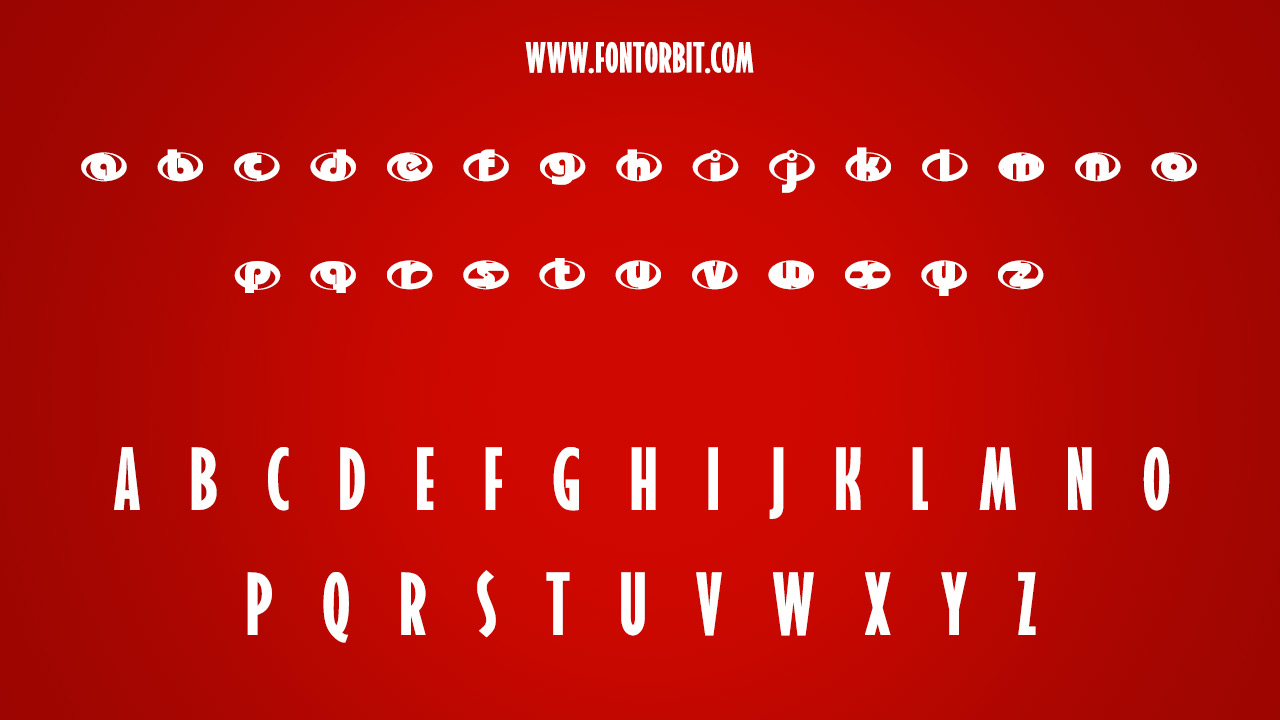
Incredibles Font is a vibrant typeface inspired by the title design of the 2004 animated film The Incredibles.
Designed by Jens R. Ziehn and released on November 17, 2004, this font captures the bold and energetic style of the movie’s branding. It is available for free personal use and is perfect for adding a touch of superhero flair to your projects.
Types Of The Incredibles Font
a. Incredibles Regular
The Incredibles Font is available in TTF formats. It includes lowercase letters and some special characters, making it ideal for film-themed designs and fan projects.
This font is excellent for film fan projects, including posters, banners, and fan art related to The Incredibles, as well as themed merchandise and collectables celebrating the superhero genre. It is also perfect for event and party decorations, such as invitations and decor for superhero-themed events. It is useful for creating engaging social media graphics for film-related posts.
The Incredibles Font, created by Jens R. Ziehn, reflects the dynamic and heroic essence of the film’s title design. Free for personal use, it is an excellent choice for film fan projects, themed merchandise, and event decorations. Its bold and energetic design makes it a valuable asset for adding a superhero touch to various creative endeavours.
2.What Is The Incredibles Font Called?
The Incredibles font is called “The Incredibles” and was designed by Jens R. Ziehn.
3.What Are The Trending Styles And Variations Of The Incredibles Font?
Trending styles include bold, dynamic variations with strong, superhero-inspired letterforms and occasional use of italicized or condensed versions.
4.What Are The Best Practices For Using The Incredibles Font In Web Design?
Ensure readability by using it for headlines or key elements and pairing it with simple, clean fonts for body text.
5.What Are The Advantages Of Using The Incredibles Font In Branding?
It evokes a dynamic, heroic feel, enhancing brand identity with a bold and recognizable design.
6.What Are The Different Weights And Styles Available For The Incredibles Font?
The Incredibles font typically includes a regular weight with bold or dynamic styles for emphasis, but variations are limited in the free version.